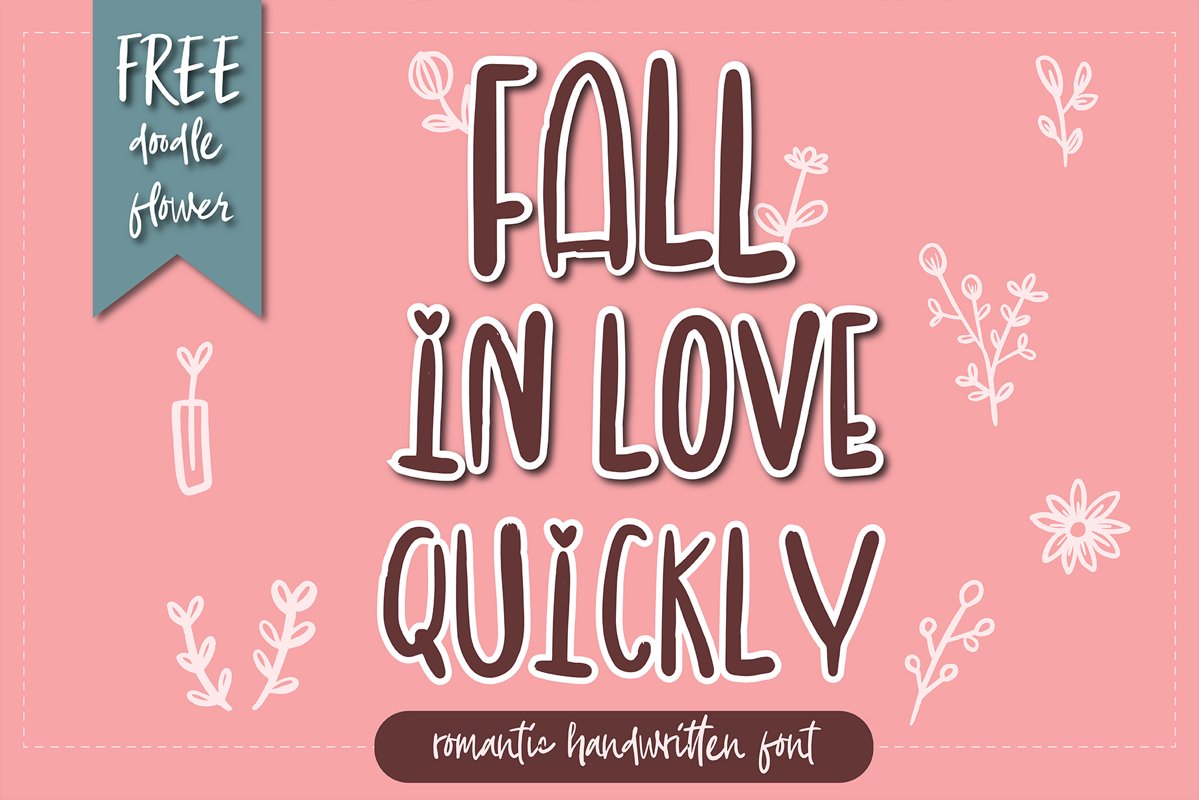
Fall in love quickly romantic handwritten font
Fall in love quickly romantic handwritten font- Handwritten Kawaii style. English language only
Are you looking for cute Handwritten font for your project? Then you have come the right land!!
This Font is perfect for kid greeting card, Print t shirt, fashion artworks or just play around. Festival like Valentine's Day, Kid's Party, wedding!!